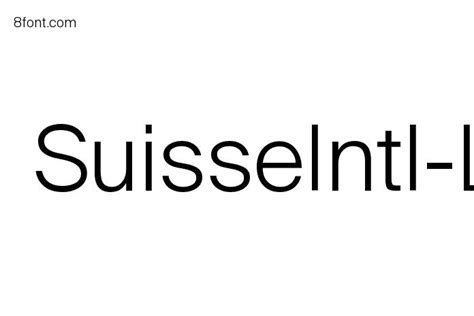
Suisse Int'l Font: A Comprehensive Guide
Hey guys! Today, we’re diving deep into the world of typography to explore a font that has been making waves in the design industry: Suisse Int’l . If you’re a designer, marketer, or just someone who appreciates the art of fonts, you’re in for a treat. We’ll cover everything from its history and characteristics to its best use cases and where you can get your hands on it. So, let’s get started!
What is Suisse Int’l?
Let’s talk about Suisse Int’l , which is a contemporary sans-serif typeface designed by Swiss type foundry Swiss Typefaces. Suisse Int’l has gained popularity for its clean, neutral, and highly versatile design. It’s the kind of font that doesn’t scream for attention but subtly enhances the overall aesthetic of your project. Its simplicity is its strength, making it suitable for a wide range of applications, from branding and advertising to editorial design and web interfaces.
The story of Suisse Int’l begins with Swiss Typefaces, a foundry known for its high-quality, meticulously crafted fonts. The designers aimed to create a typeface that embodies Swiss design principles: clarity, neutrality, and functionality. They wanted a font that could perform well in various contexts without imposing a particular style or feeling. The result was Suisse Int’l , a typeface that has become a staple in the design world. It is used everywhere, from corporate websites to printed brochures. The font’s adaptability makes it a go-to choice for designers who need a reliable and versatile option. The success of Suisse Int’l can be attributed to its careful balance of form and function, making it both aesthetically pleasing and highly readable. Designers appreciate its clean lines and well-proportioned characters, which contribute to a polished and professional look. Moreover, its neutrality allows it to pair well with other fonts, giving designers the flexibility to create unique and visually appealing designs. The typeface’s popularity has also led to its inclusion in numerous branding projects, where it helps to convey a sense of reliability and sophistication. Whether it’s used for headlines, body text, or captions, Suisse Int’l consistently delivers a clear and legible message. The font’s widespread adoption is a testament to its enduring appeal and its ability to meet the demands of modern design. Its timeless quality ensures that it will remain a relevant and valuable asset for designers for years to come.
Key Characteristics of Suisse Int’l
When we talk about Suisse Int’l , its key characteristics really make it stand out. First off, it’s a sans-serif font, meaning it lacks those little decorative strokes (serifs) you see at the end of letterforms in fonts like Times New Roman. This gives it a modern and clean appearance. The letterforms are also designed with a geometric structure, providing excellent legibility and a contemporary feel. The font family includes a variety of weights, from light to black, offering flexibility for different design needs. It also supports a wide range of languages, making it suitable for international projects.
Suisse Int’l’s neutrality is one of its most significant assets. It doesn’t have a strong personality of its own, which means it can easily adapt to different design styles and contexts. This makes it a great choice for projects where you want the content to take center stage, rather than the font itself. The font’s clean lines and geometric structure contribute to its legibility, ensuring that text remains readable even at small sizes. This is particularly important for web design, where readability is crucial for user experience. In addition to its visual attributes, Suisse Int’l also boasts excellent technical qualities. It is meticulously kerned and spaced, ensuring that each character fits seamlessly with its neighbors. This attention to detail results in a harmonious and balanced text layout, enhancing the overall aesthetic of the design. The font family’s extensive range of weights and styles provides designers with a versatile toolkit for creating visual hierarchy and adding emphasis to key elements. Whether it’s used for headlines, body text, or captions, Suisse Int’l consistently delivers a polished and professional look. Its support for multiple languages further expands its usability, making it a valuable asset for international branding and communication projects. The font’s adaptability and reliability have made it a favorite among designers, who appreciate its ability to enhance the overall impact of their work without overshadowing the content. Its timeless quality ensures that it will remain a relevant and valuable tool for designers for years to come.
Best Use Cases for Suisse Int’l
Let’s explore the best use cases for Suisse Int’l . Due to its versatility, Suisse Int’l shines in a variety of design projects. It’s an excellent choice for branding, where its neutrality helps convey a sense of reliability and clarity. Many companies use it for their logos, websites, and marketing materials. In editorial design, it works well for both headlines and body text, providing a clean and readable experience. It’s also a popular choice for user interfaces (UI) because its legibility ensures a smooth user experience. Advertising is another area where Suisse Int’l excels, as it can be used to create impactful and visually appealing campaigns.
In the realm of corporate branding, Suisse Int’l helps to establish a professional and trustworthy image. Its clean and modern appearance aligns well with the values of many organizations, making it a popular choice for logos, business cards, and other corporate materials. The font’s neutrality allows it to seamlessly integrate with different brand identities, enhancing the overall aesthetic without overpowering the message. For editorial design, Suisse Int’l’s readability makes it an ideal choice for long-form content. Whether it’s used in magazines, books, or online articles, the font ensures that readers can easily navigate and comprehend the text. Its geometric structure and balanced proportions contribute to a comfortable reading experience, reducing eye strain and improving engagement. In user interface design, Suisse Int’l’s legibility is paramount. Its clear and distinct letterforms make it easy for users to read text on screens, enhancing the usability of websites and applications. The font’s clean appearance also contributes to a modern and uncluttered design, which is essential for creating a positive user experience. Advertising campaigns benefit from Suisse Int’l’s versatility and visual appeal. Its ability to convey a sense of clarity and reliability makes it an effective tool for capturing the attention of potential customers. The font can be used in a variety of advertising formats, from print ads to digital banners, ensuring that the message is communicated effectively across different channels. Its adaptability and timeless quality make it a valuable asset for designers seeking to create impactful and memorable campaigns. Overall, Suisse Int’l’s versatility and visual appeal make it a go-to choice for designers across various disciplines. Its ability to adapt to different contexts and enhance the overall impact of a project makes it a valuable asset for anyone looking to create visually stunning and effective designs.
Tips for Using Suisse Int’l Effectively
Here are some handy tips for using Suisse Int’l effectively. Pair it with other fonts to create visual contrast. For example, you might use Suisse Int’l for headings and a serif font like Georgia for body text. Experiment with different weights to create visual hierarchy and emphasize important information. Pay attention to kerning and leading to ensure optimal readability. Use it consistently across all your design materials to maintain a cohesive brand identity.
In summary, Suisse Int’l stands out as a font that embodies the principles of Swiss design: clarity, neutrality, and functionality. Its adaptability and visual appeal make it a valuable asset for designers across various disciplines. From corporate branding to editorial design, user interfaces to advertising campaigns, Suisse Int’l consistently delivers a polished and professional look. By understanding its key characteristics and best use cases, you can effectively incorporate it into your design projects and enhance the overall impact of your work. Its timeless quality ensures that it will remain a relevant and valuable tool for designers for years to come. So, whether you’re a seasoned designer or just starting out, consider adding Suisse Int’l to your font library and experience the difference it can make in your designs. Its versatility and reliability make it a go-to choice for creating visually stunning and effective designs. By mastering its use, you can elevate your work and create a lasting impression on your audience. Overall, Suisse Int’l is a font that truly lives up to its reputation as a versatile and reliable choice for designers. Its clean lines, neutral appearance, and adaptability make it a valuable asset for creating visually stunning and effective designs. So, go ahead and explore the possibilities of Suisse Int’l and see how it can transform your designs. You won’t be disappointed!